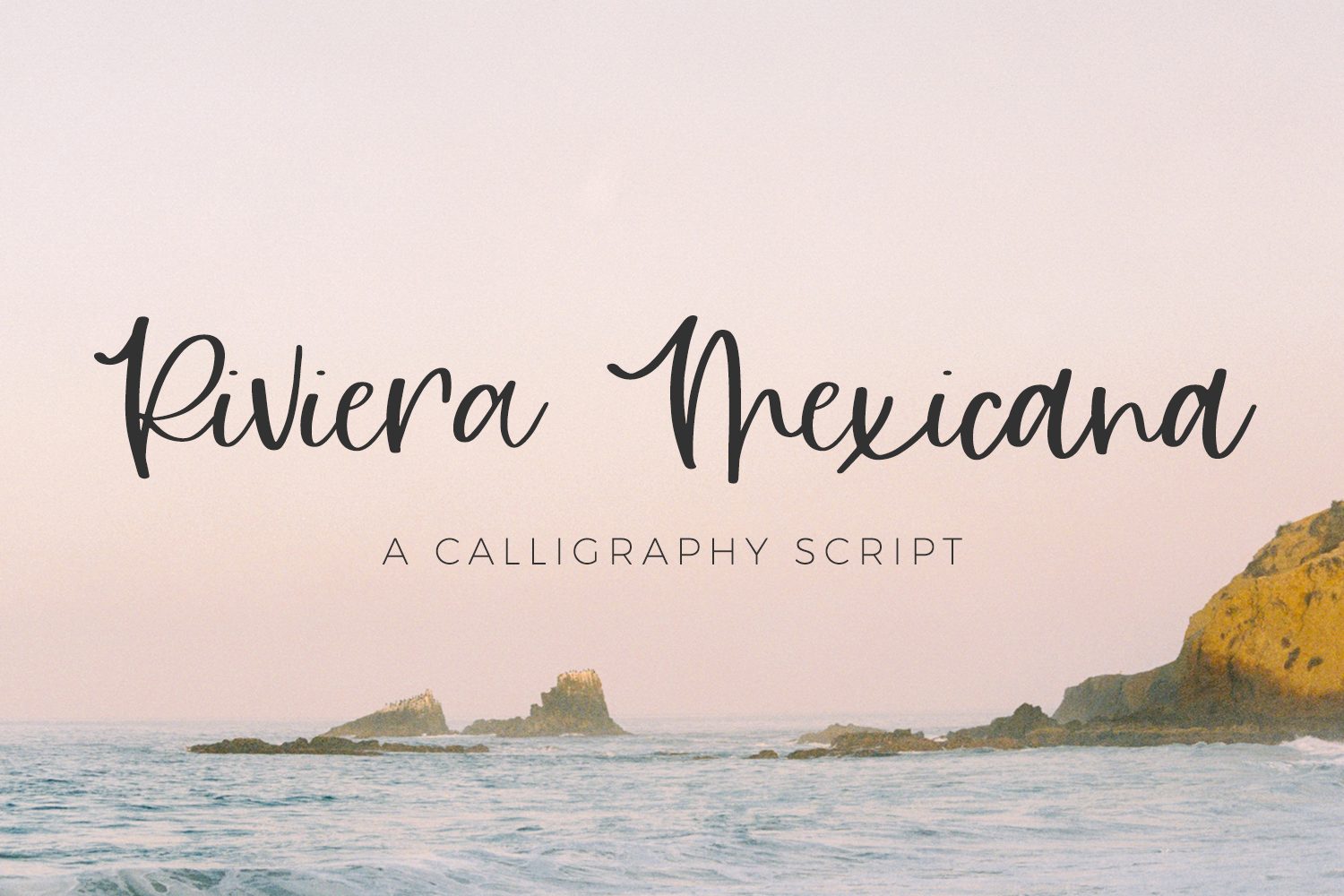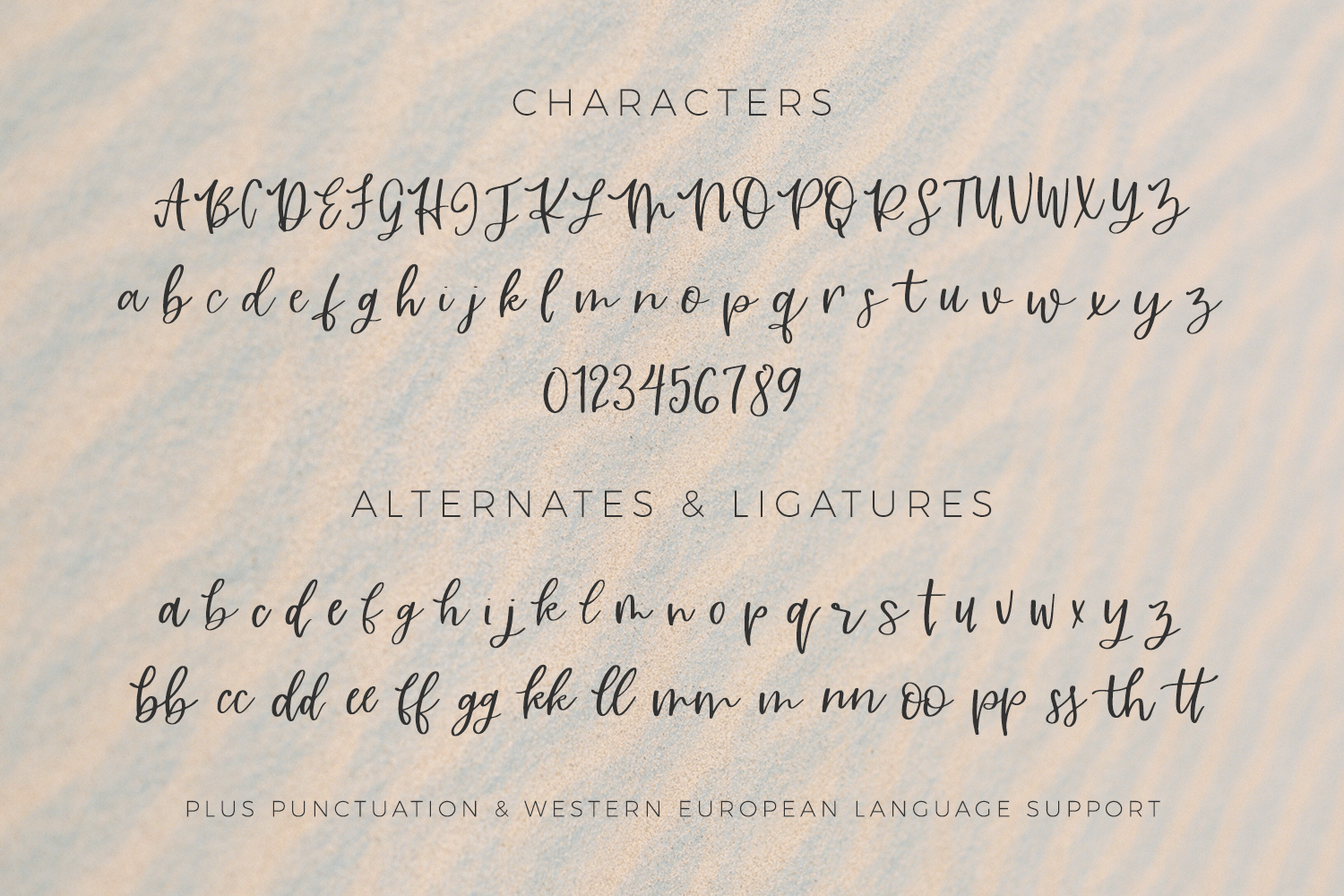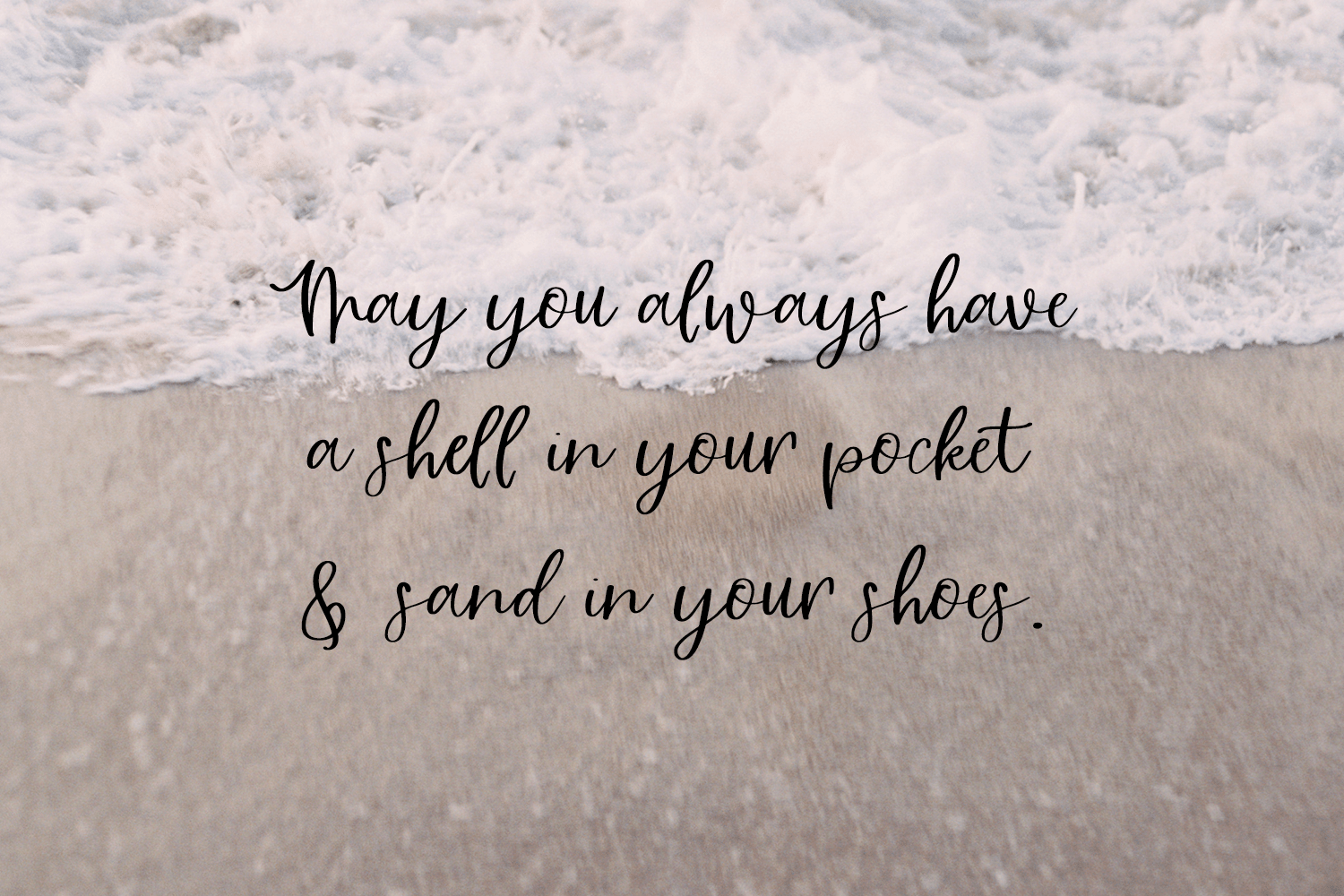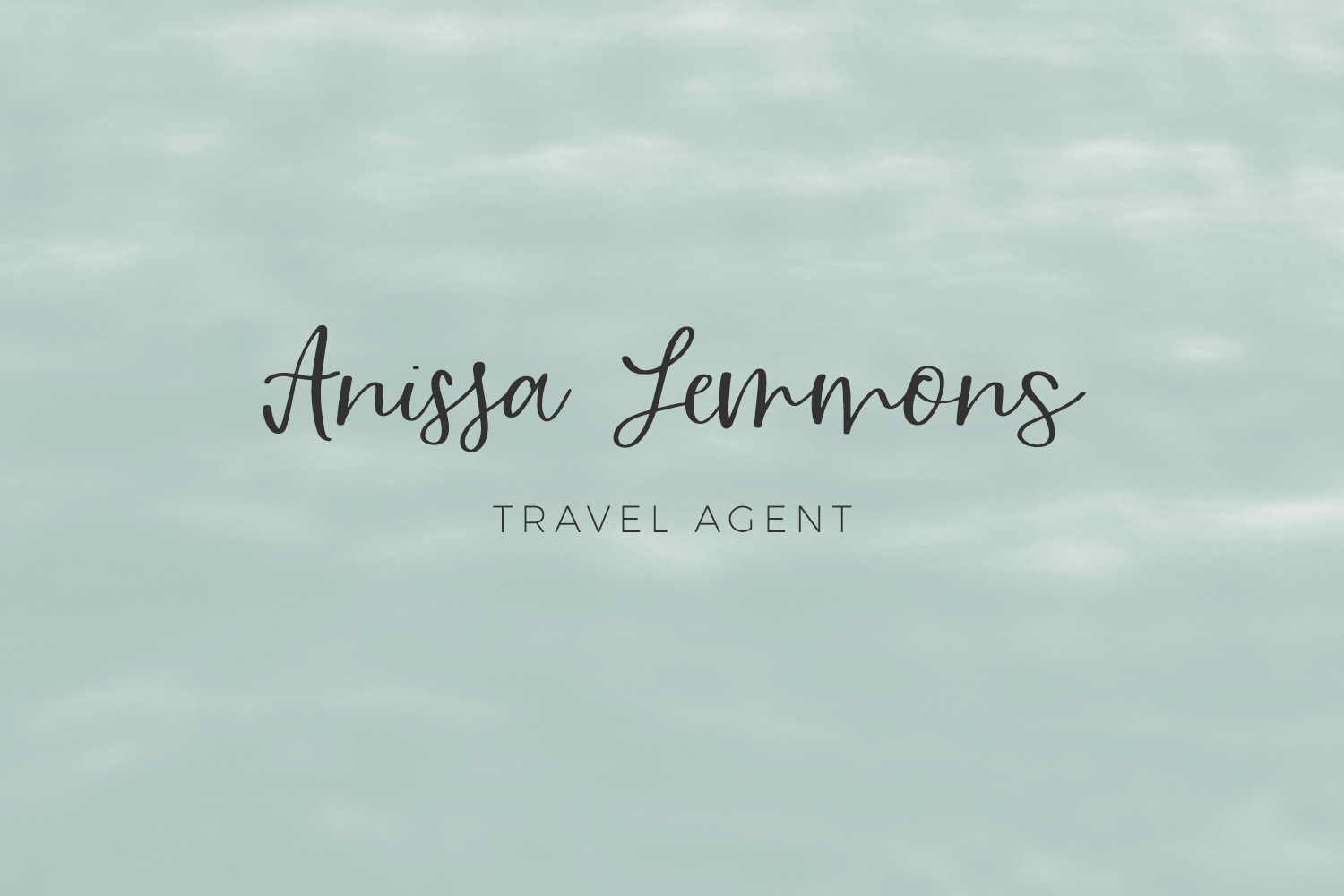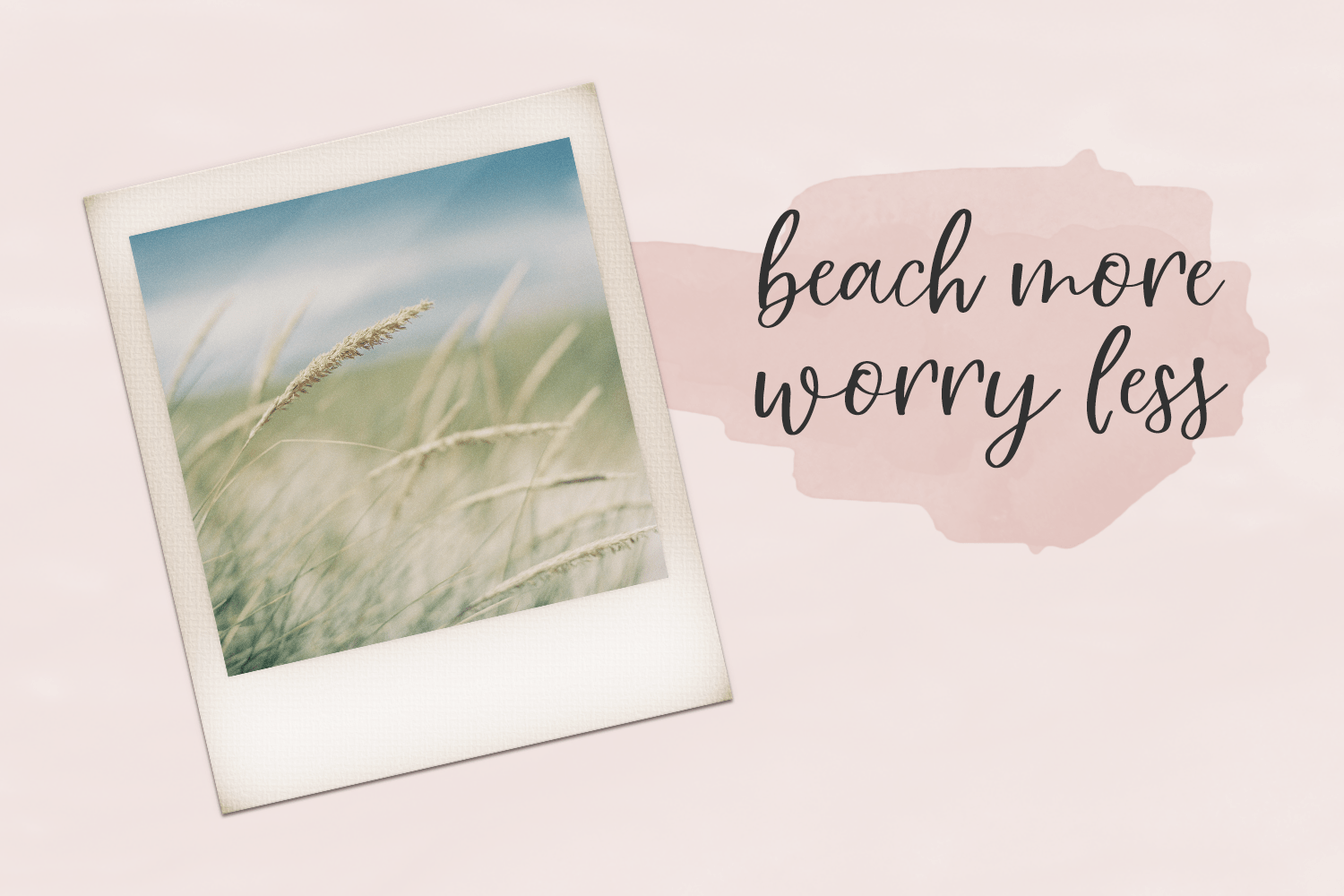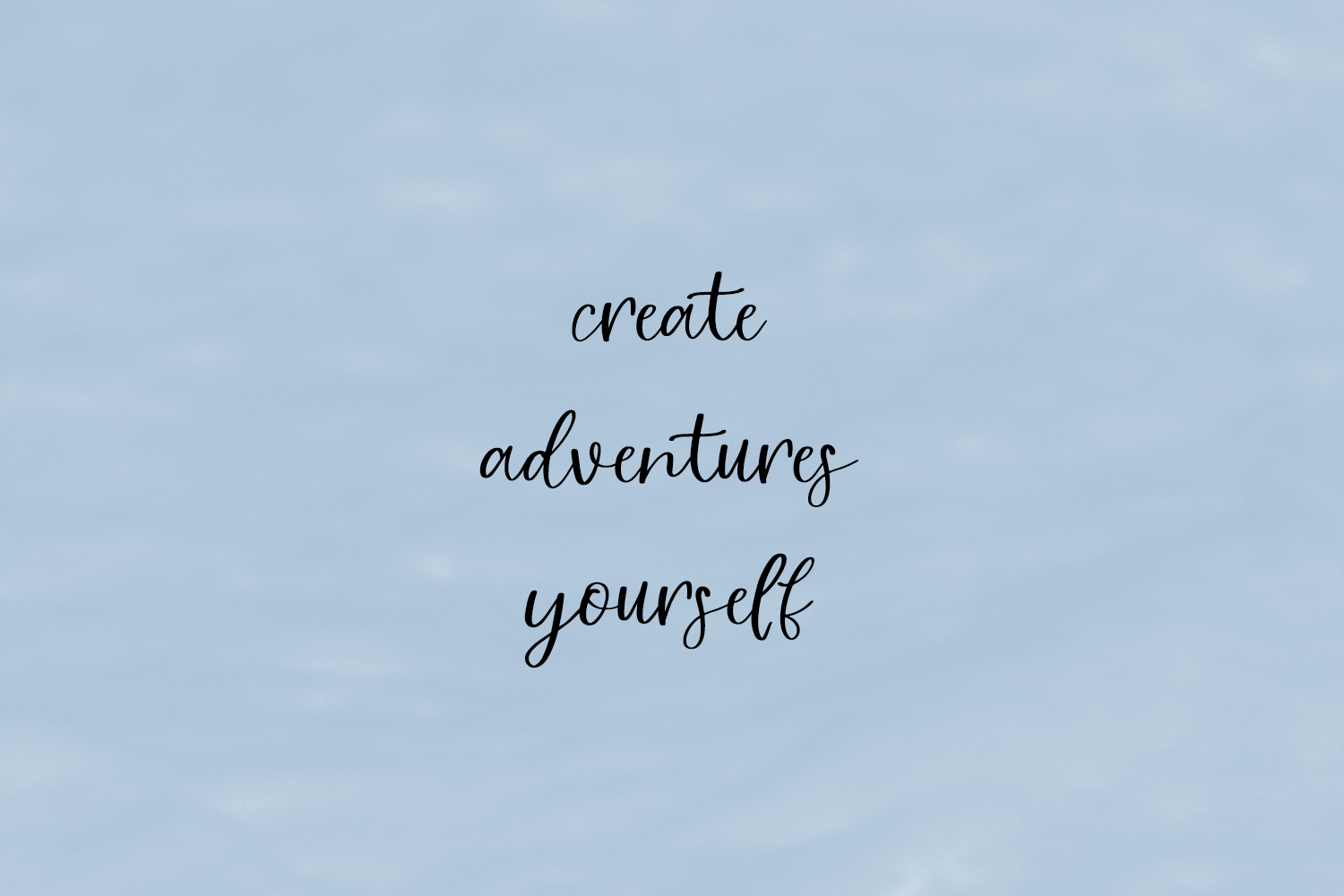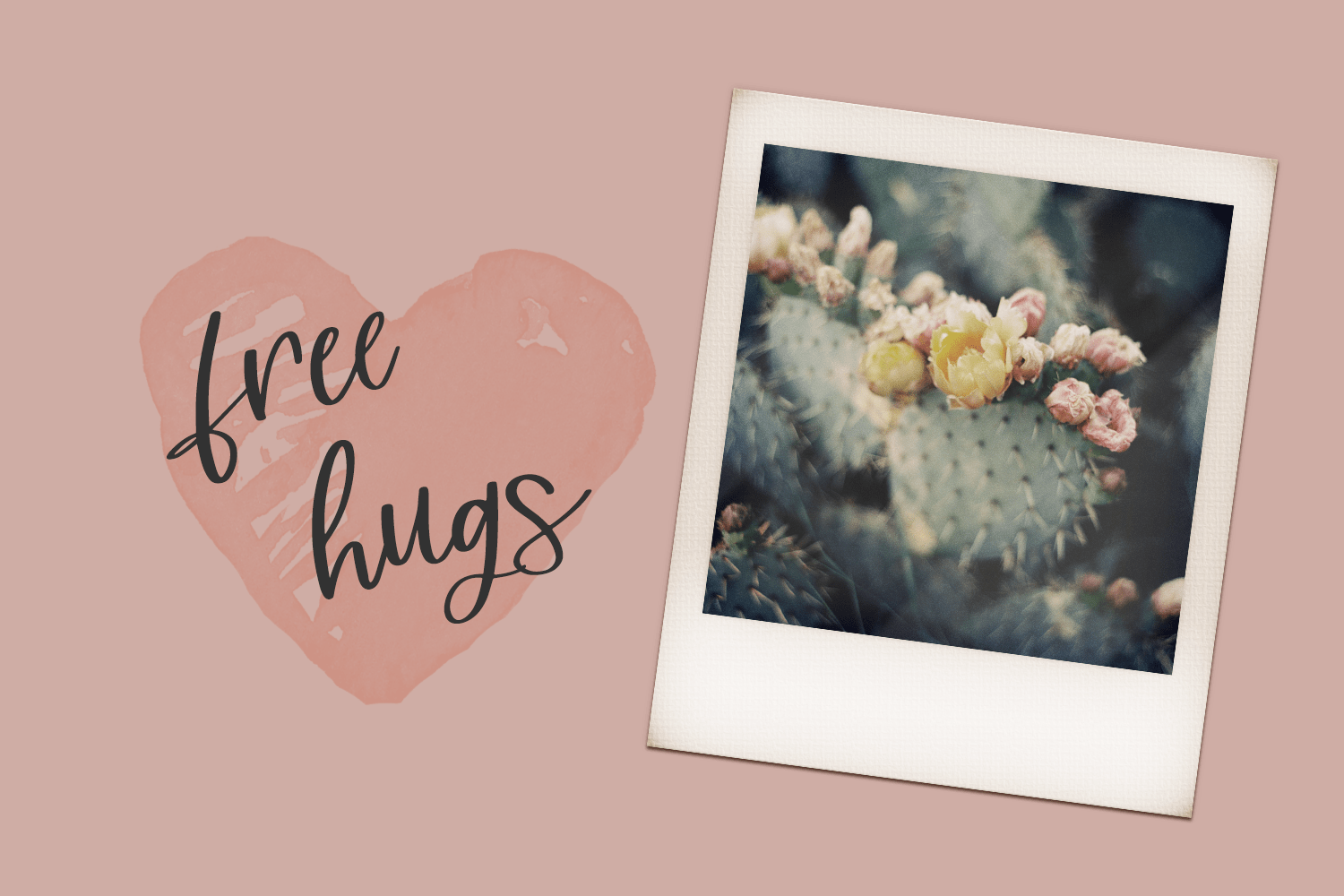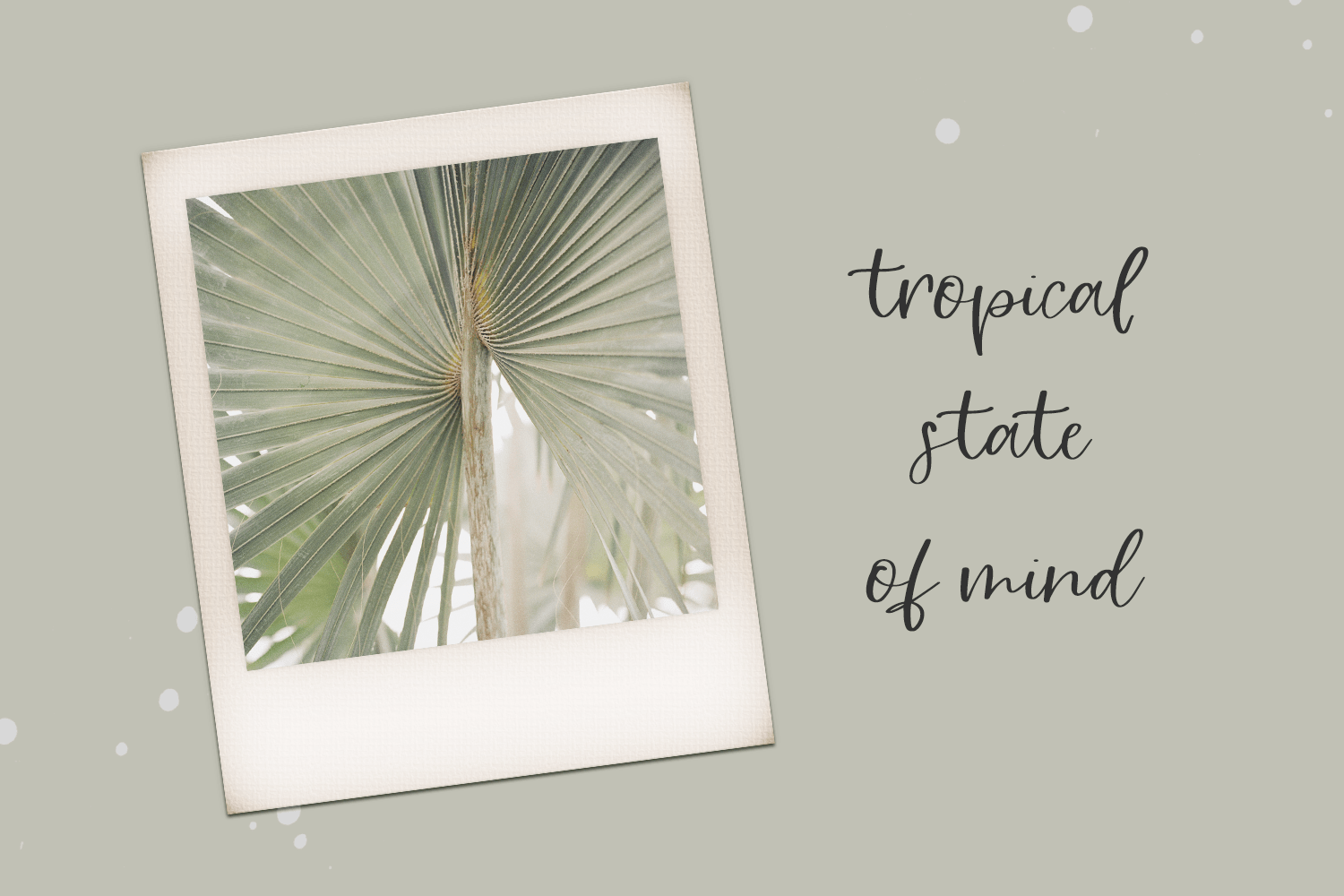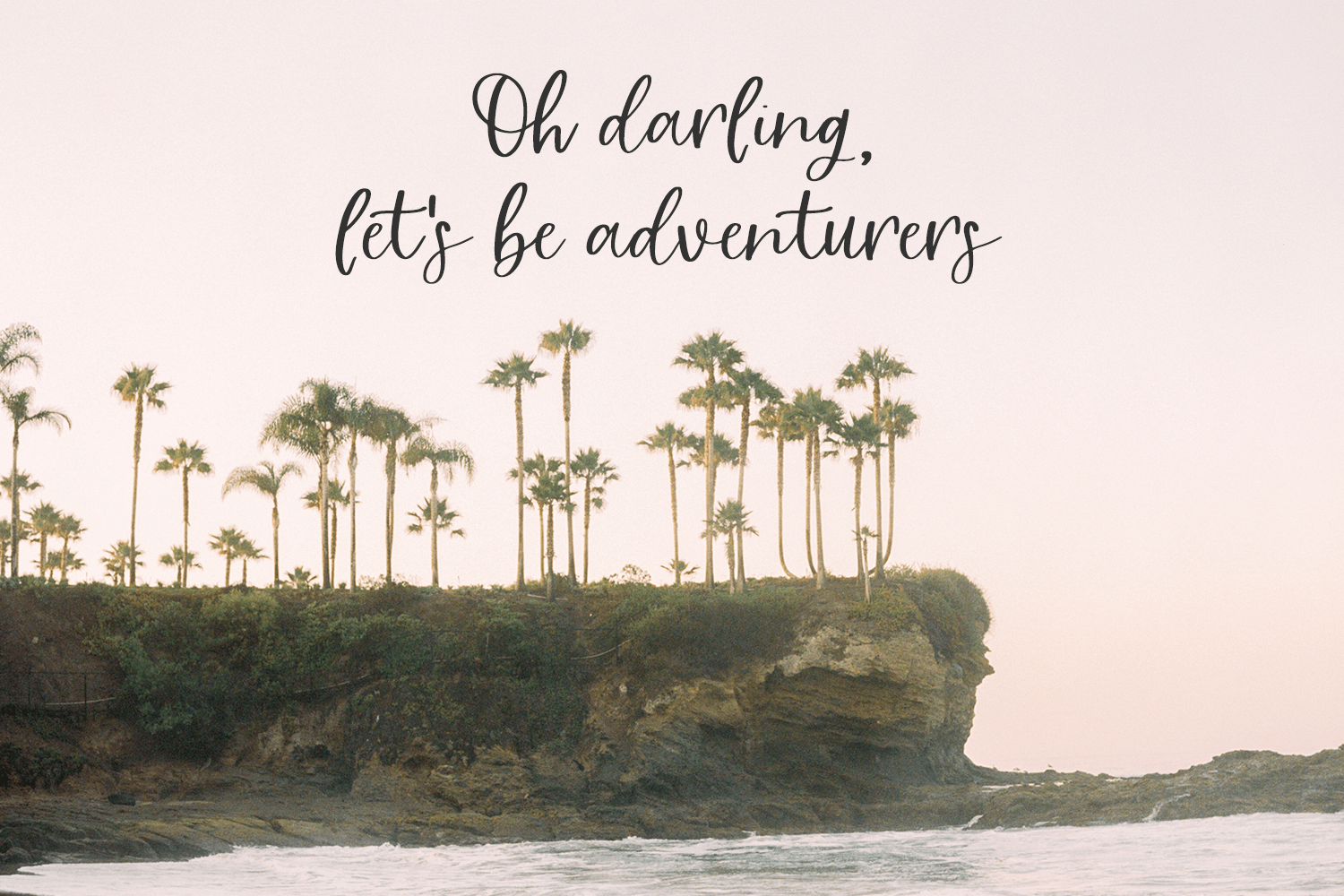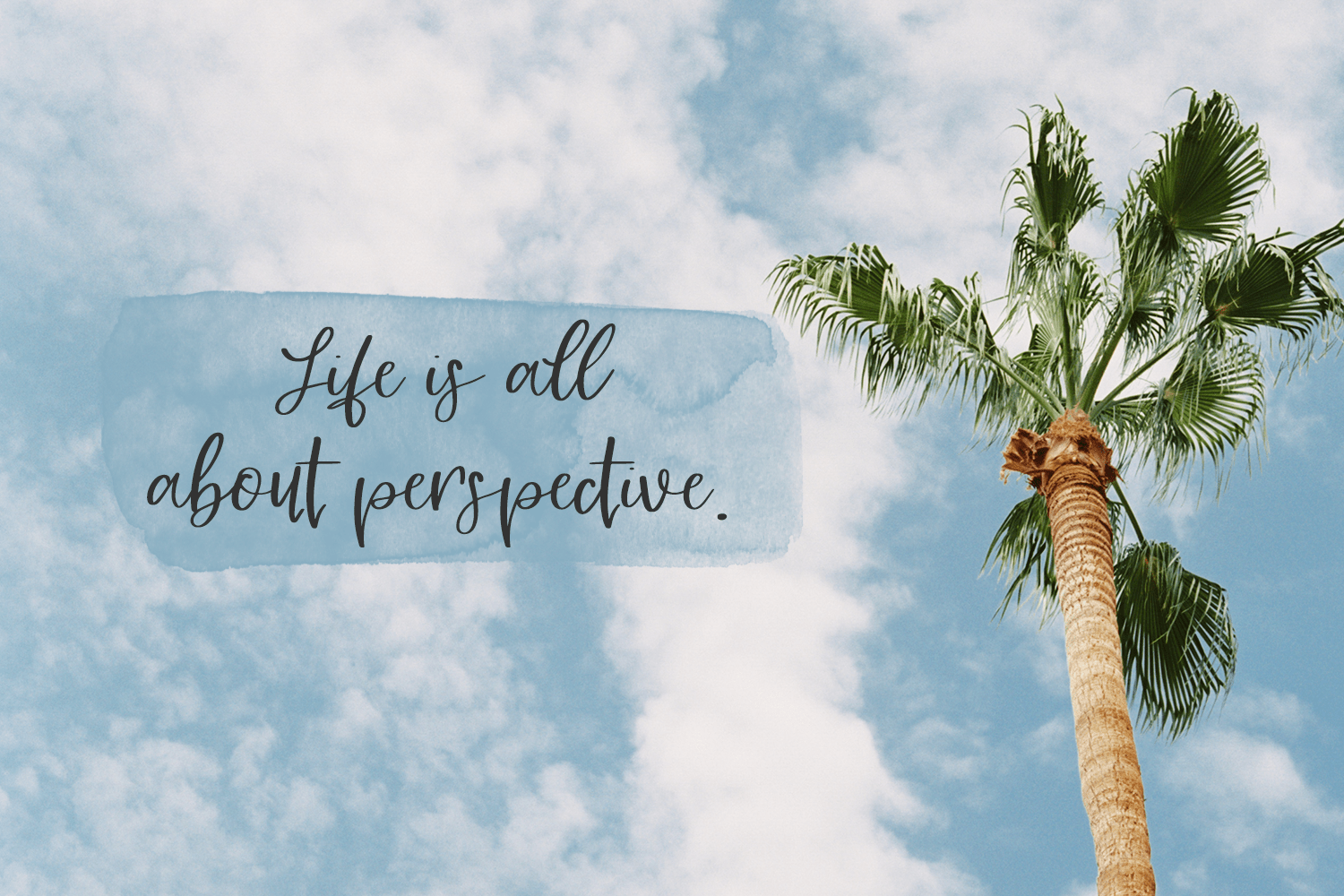
Riviera Mexicana Script Font
Introducing Riviera Mexicana, a bouncy romantic calligraphy script with extra features.
Riviera Mexicana is best for:
– logos + branding
– website design + website accents – think travel blogs, fashion blogs, & more
– clean print design, like magazines + flyers
– header elements that need handwritten touch
– quote graphics for social media
Riviera Mexicana includes:
– 26 alternate lowercase characters
– 15 ligatures – bb, cc, dd, ee, ff, gg, kk, ll, mm, nn, oo, pp, ss, th, tt